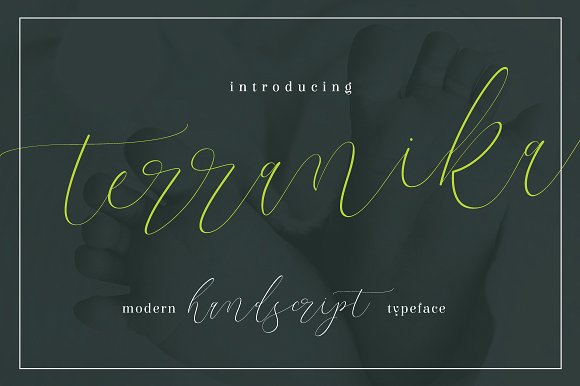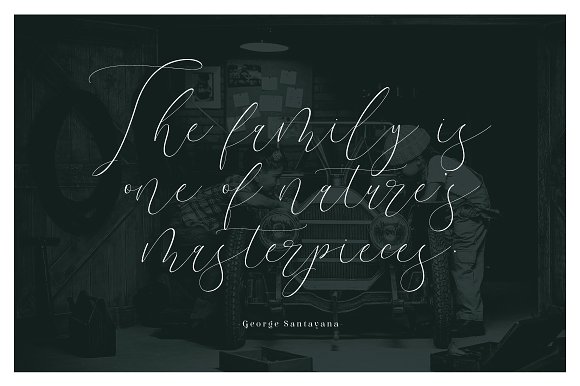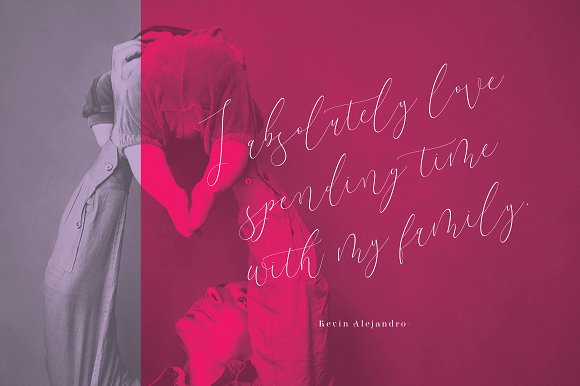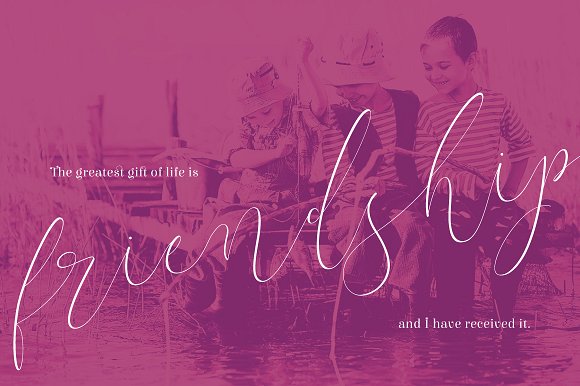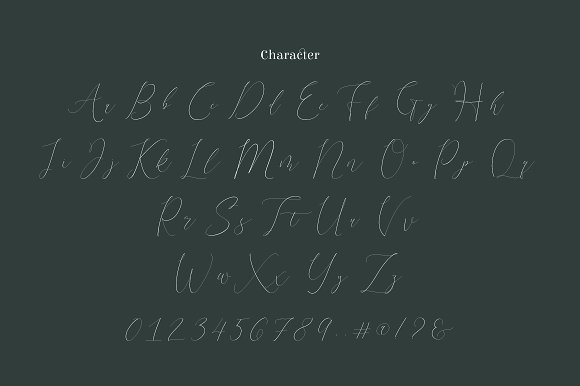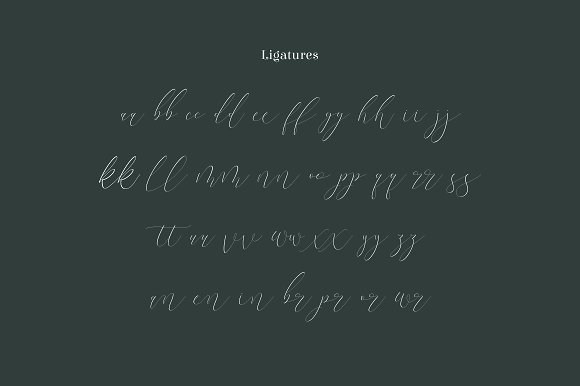
HomeScript FontsTerranika Font Script Fonts Terranika Font FacebookXPinterestWhatsApp Terranika Font Poster 2 Terranika Font Poster 3 Terranika Font Poster 4 Terranika Font Poster 5 Terranika Font Poster 6 About Terranika Font Terrinka is a ultra-thin, modern handwritten font. DOWNLOAD ON CREATIVE FABRICAThis font is sold and delivered by Creative Fabrica. Font Canyon may earn a commission if you buy through this link. People also explored Green Tea Font Tippa Font Almairah Font Scratchedman Font November Font Fathers Day Font Scrivimi Font Adhira Font Mattelost Font 351 0 TagsTerranika Font Previous articleDullan FontNext articleMahdaleina Font LEAVE A REPLY Cancel reply Comment: Please enter your comment! Name:* Please enter your name here Email:* You have entered an incorrect email address! Please enter your email address here Website: Save my name, email, and website in this browser for the next time I comment. Personal Use Free Shelly Personal Use Free Read more about this font Bollado Personal Use Free Read more about this font Bosk Personal Use Free Read more about this font Kitchen Blue Personal Use Free Read more about this font BLOG Elegant Wedding Invitation Fonts – Handwritten & Script Fonts Elegant Wedding Invitation Fonts Your wedding day is one of the most important moments of your life, and every detail matters—including your invitation design. Our... Transform Your Website: Elevate Your Typography with 7 Best Web Font Generators Where to Buy American Fonts Online in 2024 How to Install and Use Fonts on Windows, macOS, and Web Projects